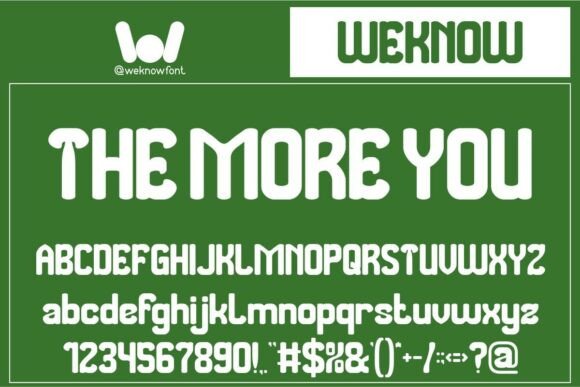
The More You: A Dynamic Typeface for Modern Branding
In the ever-evolving landscape of digital design and print media, typography serves as the silent ambassador of a brand's identity. It is the first element that communicates tone, personality, and intent before a single word is read. Among the myriad of typefaces available today, The More You has emerged as a distinctive choice for designers seeking to bridge the gap between playful creativity and professional functionality. This contemporary sans serif font does not merely sit on the page; it interacts with the viewer, offering a visual experience that is both approachable and robust. Whether you are crafting a logo for a startup, designing packaging for organic goods, or creating headlines for a digital publication, understanding the nuances of this typeface can significantly elevate your design projects.
The Geometry of Approachability
At its core, The More You is defined by its unique structural composition. Unlike rigid geometric sans serifs that prioritize strict mathematical precision over human warmth, this font introduces soft, plump letterforms that immediately signal friendliness. The consistent weight across characters creates a sense of stability, while the rounded edges inject a necessary dose of whimsy. This combination results in a typeface that feels hand-crafted yet digitally precise, making it an ideal candidate for brands that wish to appear accessible without sacrificing authority.
The "plumpness" of the letters is not merely an aesthetic choice; it serves a functional purpose in readability. In environments where attention spans are short, such as social media feeds or mobile applications, bold and distinct shapes capture the eye more effectively than thin, delicate lines. The rounded terminals of The More You guide the reader's eye smoothly from one character to the next, reducing visual fatigue. This makes it particularly effective for body text in children's books or educational materials, where engagement is paramount. However, its versatility extends far beyond these niches, proving equally capable in high-stakes corporate communications when used strategically.
Balancing Fun and Functionality
One of the most challenging tasks for a graphic designer is finding a font that can wear multiple hats. A typeface might be perfect for a comic book but entirely unsuitable for a financial report. The More You challenges this binary thinking by holding its own in the boldest headlines while fitting beautifully into polished corporate settings. Its ability to adapt stems from its neutral yet expressive character set. When scaled up for a magazine cover or a billboard, the font commands attention with its weighty, bold outlines. Conversely, when reduced for use in web navigation or footnotes, it retains its legibility and charm.
This duality allows businesses to maintain a cohesive visual identity across diverse touchpoints. Imagine a tech company that wants to project innovation and reliability but also wishes to appear human-centric. Using The More You for their primary headlines can soften the often cold perception of technology, inviting users to engage. Meanwhile, the underlying structure ensures that the message remains clear and professional. This balance is crucial in an era where consumers expect brands to be both competent and relatable.
Visual Impact in Advertising and Media
The utility of The More You extends deeply into the realms of advertising, entertainment, and lifestyle branding. Its strong contender status for visually striking elements in ads, apparel, games, and music is well-earned. In the fast-paced world of digital advertising, where milliseconds determine whether a user clicks or scrolls past, the font's bold nature acts as a visual anchor. The thick strokes and rounded forms create a silhouette that is instantly recognizable, even at small sizes or low resolutions.
Consider the application of this typeface in the gaming industry. Game titles and UI elements often require fonts that convey energy and excitement. The More You fits naturally into this ecosystem, complementing vibrant color palettes and dynamic graphics. Its geometric structure aligns well with pixel art and vector illustrations common in modern game design. Similarly, in the music industry, album covers and merchandise benefit from the font's retro-modern aesthetic. It evokes a sense of nostalgia while remaining firmly planted in the present, appealing to a broad demographic of listeners.
Nesting Within Movies, Comics, and Cartoons
The film and animation industries have long relied on typography to set the mood for a narrative. The More You comfortably nests within the exciting world of movies, magazines, comics, and cartoons, offering a versatile tool for title sequences and promotional materials. In animated features, the font's rounded edges mirror the fluidity of character movement, creating a harmonious relationship between text and image. For comic books, which often utilize heavy ink lines and bold colors, the font's substantial weight ensures that dialogue boxes and captions do not get lost against busy backgrounds.
Furthermore, the font's value in social media platforms like YouTube and Instagram cannot be understated. Content creators rely heavily on thumbnails and overlay text to drive engagement. The playful vibe of The More You makes it an excellent choice for vloggers, educators, and lifestyle influencers who want their content to feel personal and inviting. On platforms where visual clutter is common, the clean, consistent weight of the font helps cut through the noise, ensuring that key messages are delivered effectively.
Strategic Pairing and Layout Considerations
While The More You is powerful on its own, its true potential is unlocked when paired correctly with other typefaces. Design principles dictate that contrast is key to a balanced layout. Because this font features soft, plump letterforms and a significant presence, it pairs exceptionally well with simple, thin sans-serif fonts. This combination keeps the focus on the charming, hand-crafted shapes of The More You while providing a clean backdrop for longer blocks of text.
For instance, in a corporate annual report, using The More You for chapter headings can add a touch of personality to otherwise dry data, while a minimalist sans-serif for the body text ensures readability. In multi-color layouts, the rounded edges of the font can be emphasized with shadows or outlines to create depth and dimension. This technique is particularly effective in children's book titles, where the interplay of color and form can stimulate imagination and interest.
Color and Texture Integration
The font works exceptionally well in multi-color layouts, where its rounded edges can be highlighted to create a tactile feel. Designers can experiment with gradients, textures, and drop shadows to enhance the three-dimensional quality of the letters. This is especially relevant for organic food packaging, where the goal is to convey freshness and natural quality. The soft curves of The More You mimic the organic shapes found in nature, reinforcing the brand's message of purity and health.
However, caution must be exercised when applying complex effects. Overloading the font with too many stylistic elements can detract from its inherent clarity. The best approach is to let the geometry of the letters speak for themselves, using color and texture as supporting actors rather than the main event. By maintaining a disciplined approach to design, creators can ensure that the font remains legible and impactful across various mediums.
Applications Across Diverse Industries
The versatility of The More You makes it a valuable asset for a wide range of industries. From nursery design to casual lifestyle brands, this font brings a sweet and welcoming vibe that resonates with audiences of all ages. In the education sector, its approachable nature makes it ideal for textbooks, worksheets, and classroom signage. Teachers and instructional designers can leverage its friendly appearance to make learning materials less intimidating for young students.
In the retail sector, the font's ability to convey trust and fun makes it suitable for boutique stores, toy shops, and eco-friendly product lines. Packaging designed with The More You stands out on crowded shelves, drawing customers in with its inviting aesthetic. Additionally, the font's compatibility with digital interfaces ensures that it performs well on websites, apps, and e-commerce platforms, providing a seamless experience for online shoppers.
Educational Branding and Children's Literature
For those involved in educational branding, The More You offers a unique opportunity to create a positive learning environment. Its soft, plump letterforms reduce the cognitive load associated with reading, making it easier for children to decode words. This is particularly beneficial for early readers who are still developing their literacy skills. Publishers of children's books often seek fonts that are not only readable but also engaging, and this typeface delivers on both fronts.
Moreover, the font's playfulness encourages creativity and curiosity, essential traits for young learners. When used in conjunction with colorful illustrations and interactive elements, The More You transforms static text into an immersive experience. Educators and parents alike appreciate the effort put into designing materials that are both functional and enjoyable, fostering a love for reading from an early age.
Conclusion: Embracing Versatility in Design
As the design world continues to evolve, the demand for typefaces that can adapt to changing trends and contexts will only grow. The More You stands out as a prime example of how a single font can serve multiple purposes without losing its identity. Its ability to balance fun with functionality, combined with its geometric structure and rounded edges, makes it a go-to choice for professionals and hobbyists alike.
Whether you are designing a logo for a new startup, creating packaging for a sustainable product line, or developing content for a YouTube channel, incorporating The More You into your workflow can yield impressive results. By understanding its characteristics and exploring its various applications, designers can unlock new possibilities for visual storytelling. Ultimately, the success of any design project lies in its ability to connect with the audience, and this font provides the perfect foundation for building that connection.